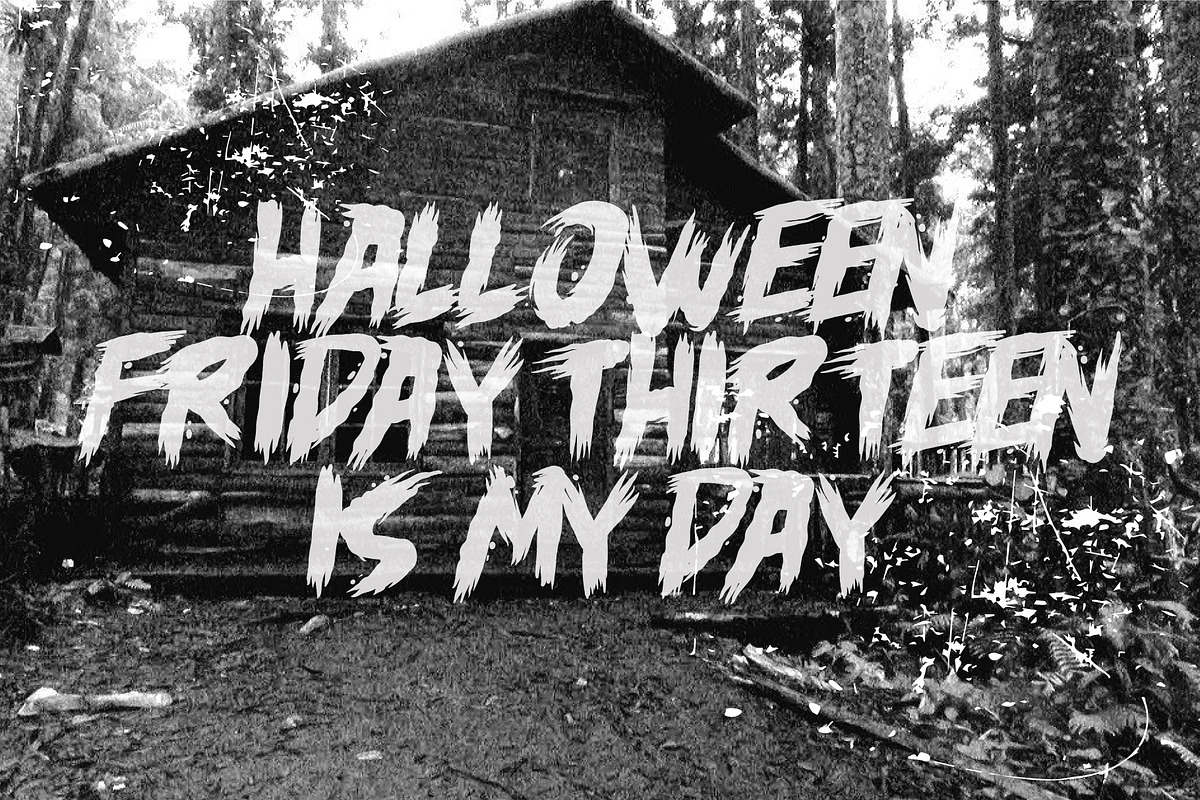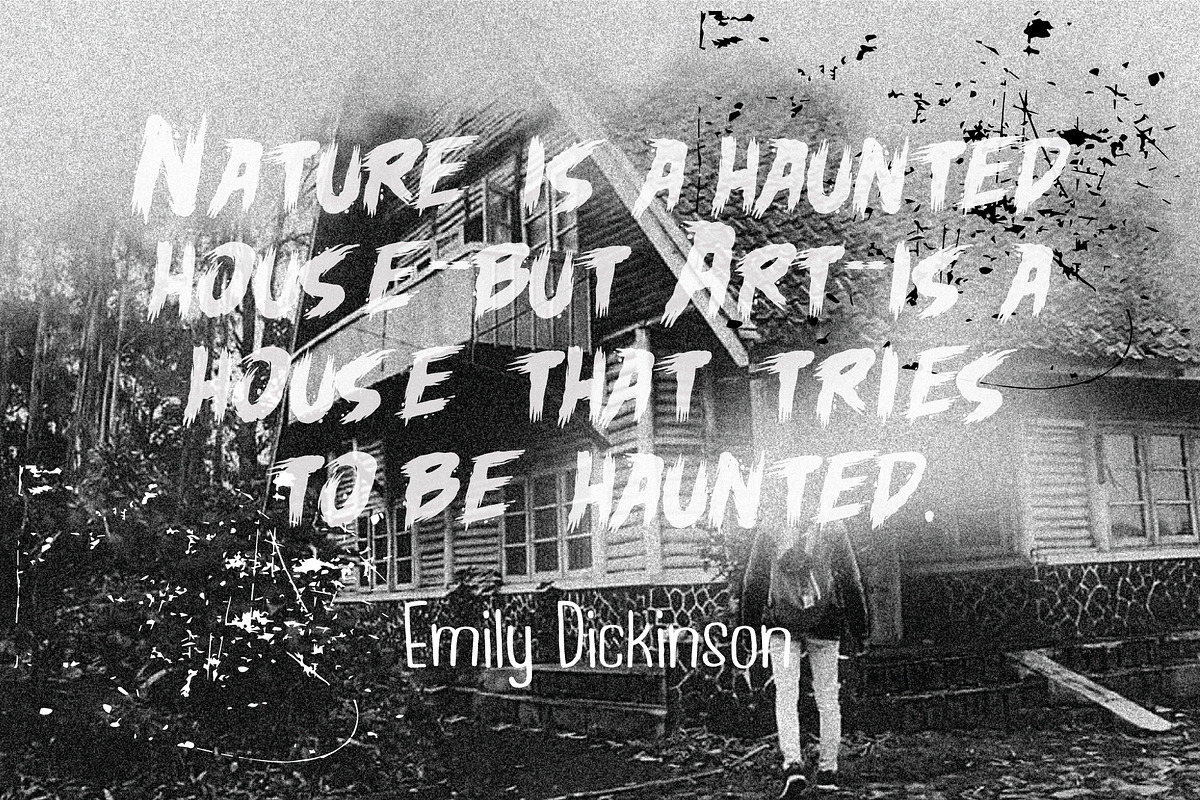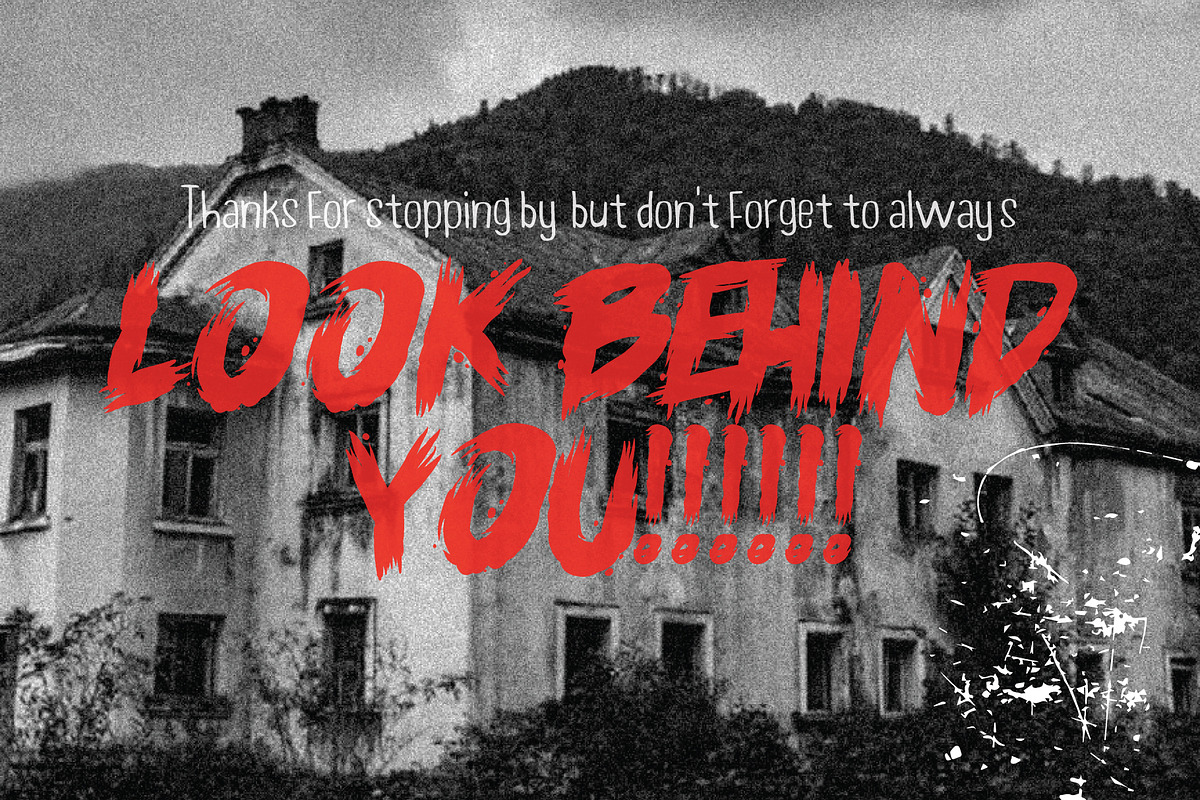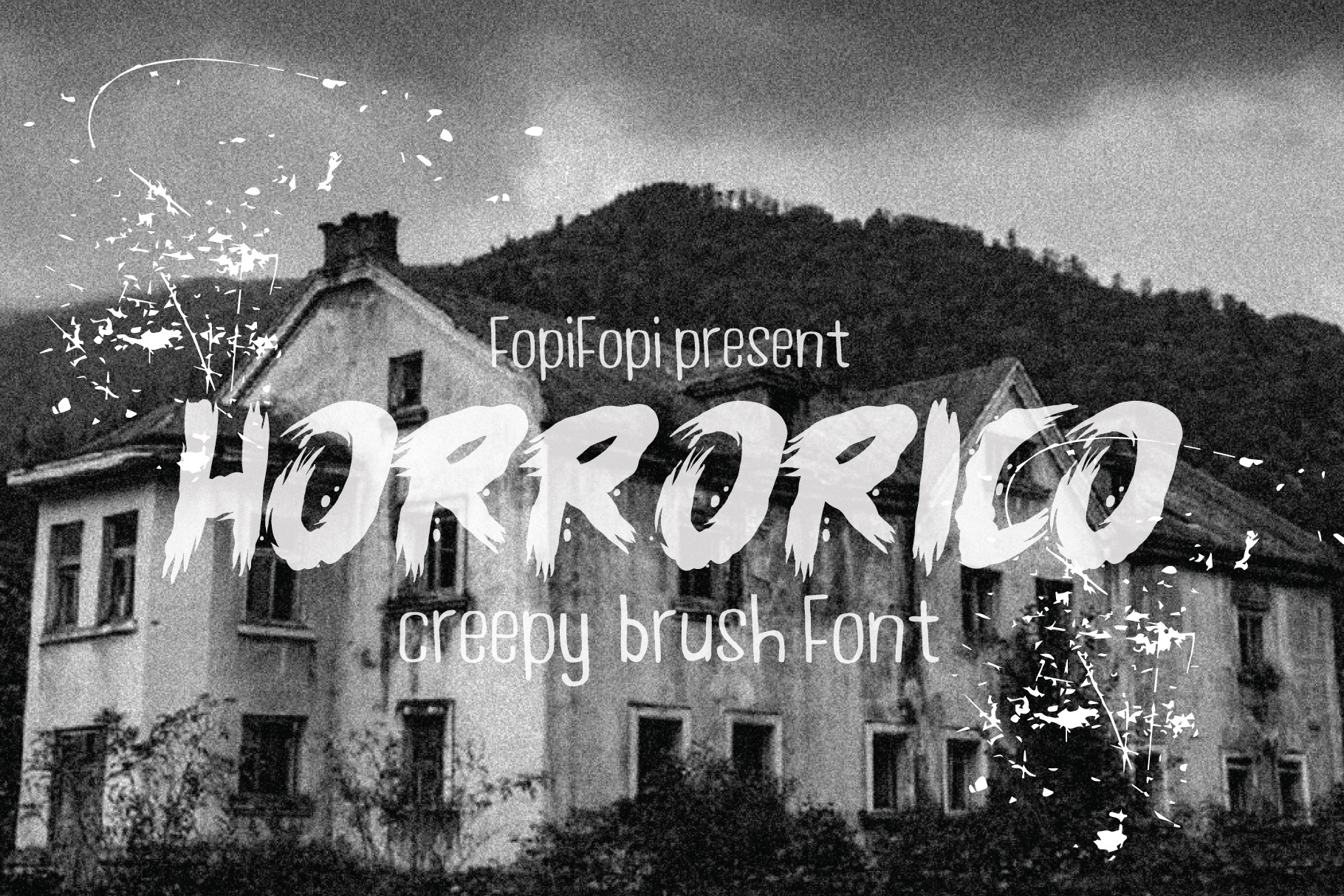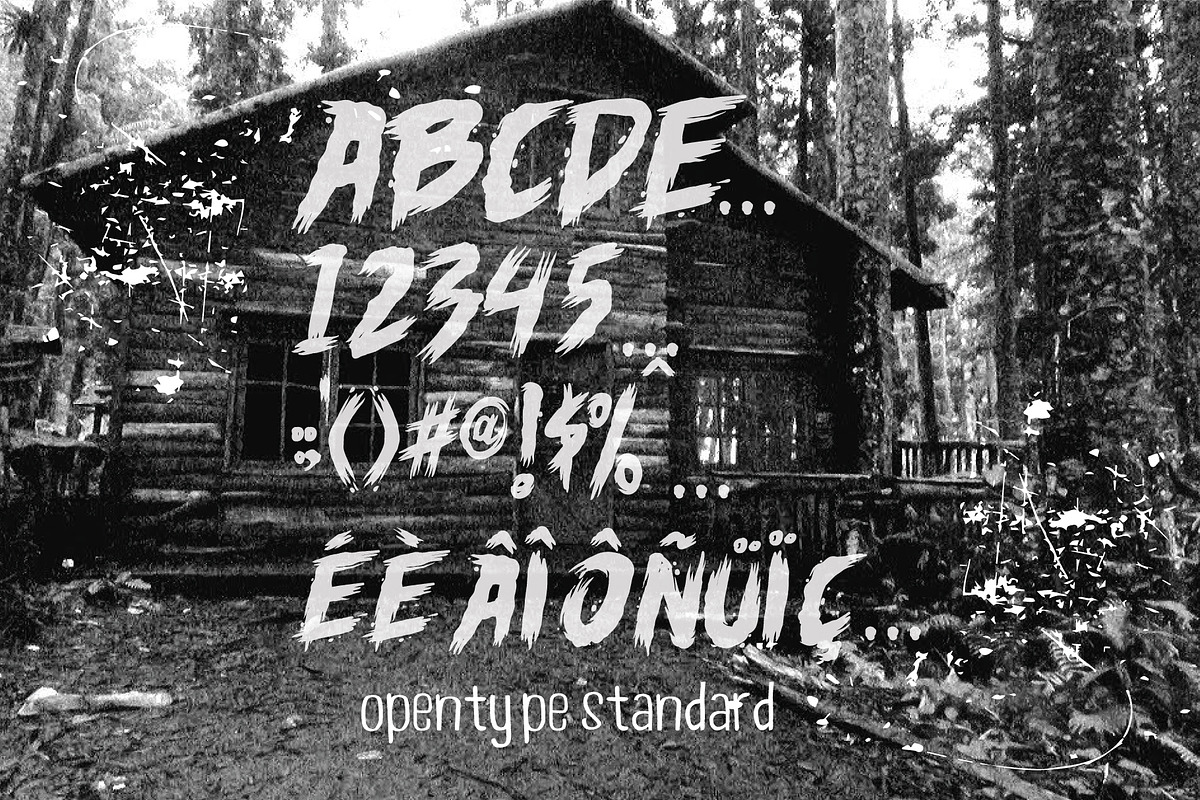
HORRORICO font +BONUS
HORRORICO was inspired from ink & tints manual handdrawn brush to make a natural creepy could help to good display, uses for labeling, clothing, movie sceen, band logo,film title, gigs, or cover album. It comes with 246 characters included Uppercase, Lowercase, Numbers, Punctuations, Currency, and Accents. ;)